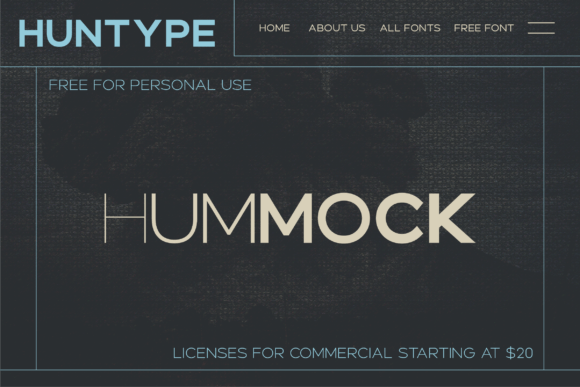
Hummock Font: A Modern and Versatile Typeface for Sophisticated Designs
The world of typography has witnessed a significant evolution over the years, with various font styles emerging and making their mark on the design landscape. Among these, the Hummock font has gained considerable attention for its unique blend of clean geometric forms and subtle sophistication. This modern and versatile font family has been designed to cater to a wide range of design applications, making it an ideal choice for designers seeking a refined and impactful typeface.
Key Features of Hummock Font
- Clean Geometric Forms: Hummock’s design is rooted in clean geometric forms, which provide a solid foundation for its modern and sophisticated aesthetic.
- Subtle Sophistication: The font’s subtle sophistication is evident in its precise letterforms and contemporary style, making it suitable for a variety of design applications.
- Adaptable Style: Hummock’s adaptable style allows it to seamlessly integrate into different design contexts, from elegant headlines to refined body text.
- Five Font Variations: The Hummock font family includes five distinct font variations: Thin, Light, Regular, Bold, and Black, each offering a unique expression of the typeface.
Exploring the Five Font Variations of Hummock
The Hummock font family offers five distinct font variations, each with its unique characteristics and design applications.
Hummock Black: Bold and Impactful
Hummock Black is the boldest and most impactful font variation in the family. Its commanding presence makes it ideal for headlines, titles, and key messages that require attention-grabbing typography. The sharp lines and geometric forms of Hummock Black create a strong visual statement, perfect for designers seeking to make a bold impression.
Hummock Bold: Strong and Persuasive
Hummock Bold is a strong and persuasive font variation, suitable for key messages, subheadings, and other design elements that require a sense of confidence and authority. Its bold yet refined aesthetic makes it an excellent choice for designers seeking to create a lasting impression.
Hummock Regular: Balanced and Versatile
Hummock Regular is the mid-weight font variation in the family, offering a balanced and versatile design that is suitable for a wide range of applications. Its elegant and refined aesthetic makes it perfect for body text, articles, and other written content that requires a touch of sophistication.
Hummock Light: Subtle and Elegant
Hummock Light is a subtle and elegant font variation, designed for refined designs that require a touch of sophistication. Its delicate lines and gentle curves create a soothing visual experience, making it ideal for designers seeking to create a sense of elegance and poise.
Hummock Thin: Delicate and Sophisticated
Hummock Thin is the most delicate and sophisticated font variation in the family, offering a minimalist touch that is perfect for designs that require a sense of subtlety and refinement. Its precise letterforms and gentle curves create a beautiful visual experience, making it suitable for elegant headlines, titles, and other design elements.
Design Applications of Hummock Font
The Hummock font family is suitable for a wide range of design applications, including:
- Branding and Identity: Hummock’s versatile design makes it an excellent choice for branding and identity projects, from logos to business cards.
- Print and Digital Media: The font’s adaptability and range of variations make it suitable for various print and digital media applications, including magazines, newspapers, and websites.
- Advertising and Marketing: Hummock’s bold and impactful font variations make it perfect for advertising and marketing campaigns that require attention-grabbing typography.
- Packaging and Labeling: The font’s elegant and refined aesthetic makes it suitable for packaging and labeling projects that require a touch of sophistication.
Typography Tips for Using Hummock Font
To get the most out of the Hummock font family, consider the following typography tips:
- Mix and Match Font Variations: Combine different font variations to create visual hierarchy and add depth to your designs.
- Pay Attention to Line Height: Ensure adequate line height to create a clear and readable text experience.
- Use Bold and Italic Styles: Use bold and italic styles to add emphasis and create visual interest in your designs.
- Experiment with Font Sizes: Experiment with different font sizes to create a visually appealing and balanced design.
In conclusion, the Hummock font family is a modern and versatile typeface that offers a unique blend of clean geometric forms and subtle sophistication. With its five distinct font variations, Hummock is suitable for a wide range of design applications, from elegant headlines to refined body text. By following typography best practices and experimenting with different font variations, designers can unlock the full potential of Hummock and create stunning designs that leave a lasting impression.